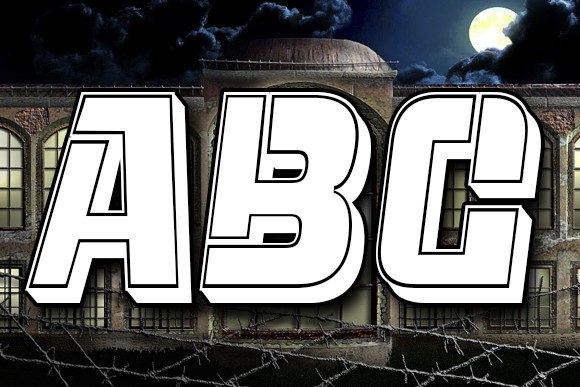
Unleash Your Creativity with Hardcore Font: The Ultimate Display Font for Bold Designs
Are you tired of using the same old fonts for your branding projects? Do you want to add a touch of futurism and edginess to your designs? Look no further than Hardcore Font, an awesome and thick lettered display font that’s perfect for creating bold and eye-catching designs. In this article, we’ll explore the features and benefits of Hardcore Font, and show you how to use it to take your designs to the next level.
What is Hardcore Font?
Hardcore Font is a display font designed for creatives who want to make a statement. Its thick, bold letters are perfect for creating logos, t-shirt prints, and other designs that need to stand out from the crowd. With its futuristic vibe, Hardcore Font is ideal for brands that want to convey a sense of innovation, energy, and excitement.
Key Features of Hardcore Font
- Thick and bold letters: Hardcore Font features thick, chunky letters that are perfect for creating eye-catching designs.
- Futuristic vibe: The font’s sleek and modern design gives it a distinctly futuristic feel that’s perfect for brands that want to convey innovation and forward-thinking.
- Versatile: Hardcore Font can be used for a wide range of design projects, from logos and t-shirt prints to posters and social media graphics.
- Easily readable: Despite its bold and chunky design, Hardcore Font is surprisingly easy to read, making it perfect for designs that need to communicate a message quickly and effectively.
Benefits of Using Hardcore Font
So why should you choose Hardcore Font for your next design project? Here are just a few benefits of using this awesome display font:
- Adds a touch of edginess: Hardcore Font’s bold and futuristic design adds a touch of edginess to any design project, making it perfect for brands that want to stand out from the crowd.
- Increases brand visibility: With its thick and bold letters, Hardcore Font is guaranteed to grab attention and increase brand visibility.
- Fits a wide range of design styles: Whether you’re creating a logo, t-shirt print, or social media graphic, Hardcore Font fits a wide range of design styles and can be easily adapted to suit your brand’s unique aesthetic.
How to Use Hardcore Font in Your Designs
So how can you use Hardcore Font in your designs? Here are a few ideas to get you started:
- Logos: Use Hardcore Font to create a bold and eye-catching logo that’s guaranteed to grab attention.
- T-shirt printing: Hardcore Font is perfect for t-shirt printing, adding a touch of edginess and futurism to any design.
- Posters and flyers: Use Hardcore Font to create bold and eye-catching posters and flyers that are guaranteed to stand out.
- Social media graphics: Hardcore Font is perfect for social media graphics, adding a touch of futurism and innovation to any design.
Tips for Getting the Most Out of Hardcore Font
Here are a few tips for getting the most out of Hardcore Font:
- Experiment with different colors: Hardcore Font looks great in a wide range of colors, so don’t be afraid to experiment and find the perfect hue for your design.
- Use it sparingly: While Hardcore Font is perfect for headlines and titles, it can be overwhelming if used too much. Use it sparingly to create maximum impact.
- Pair it with other fonts: Hardcore Font pairs well with a wide range of other fonts, so don’t be afraid to experiment and find the perfect combination for your design.
In conclusion, Hardcore Font is an awesome and thick lettered display font that’s perfect for any branding project that needs a touch of futurism and edginess. With its bold and eye-catching design, Hardcore Font is guaranteed to grab attention and increase brand visibility. So why not give it a try and see how it can take your designs to the next level?